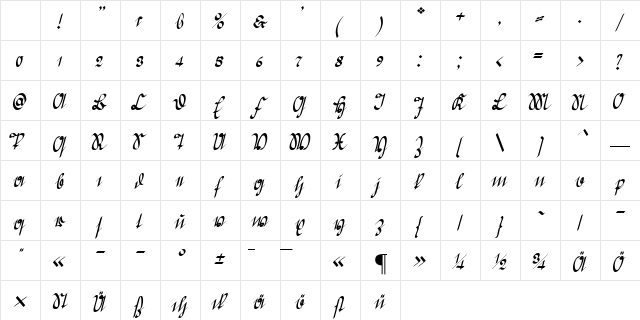
Complete Greifswaler Deutsche Schrift Regular glyph index. Displaying only characters natively supported by Greifswaler Deutsche Schrift Regular font.
Greifswaler Deutsche Schrift is a composed and adaptable typeface that performs quietly and consistently across a wide range of design contexts.
Who designed the Greifswaler Deutsche Schrift Regular font?
This font was published by Peter Wiegel. Check the technical specs section for copyright and designer details.